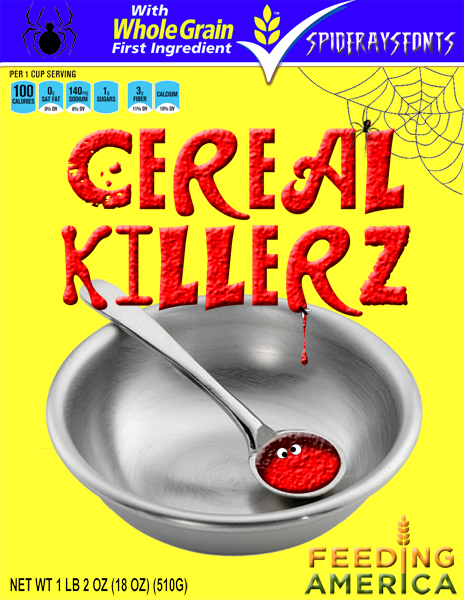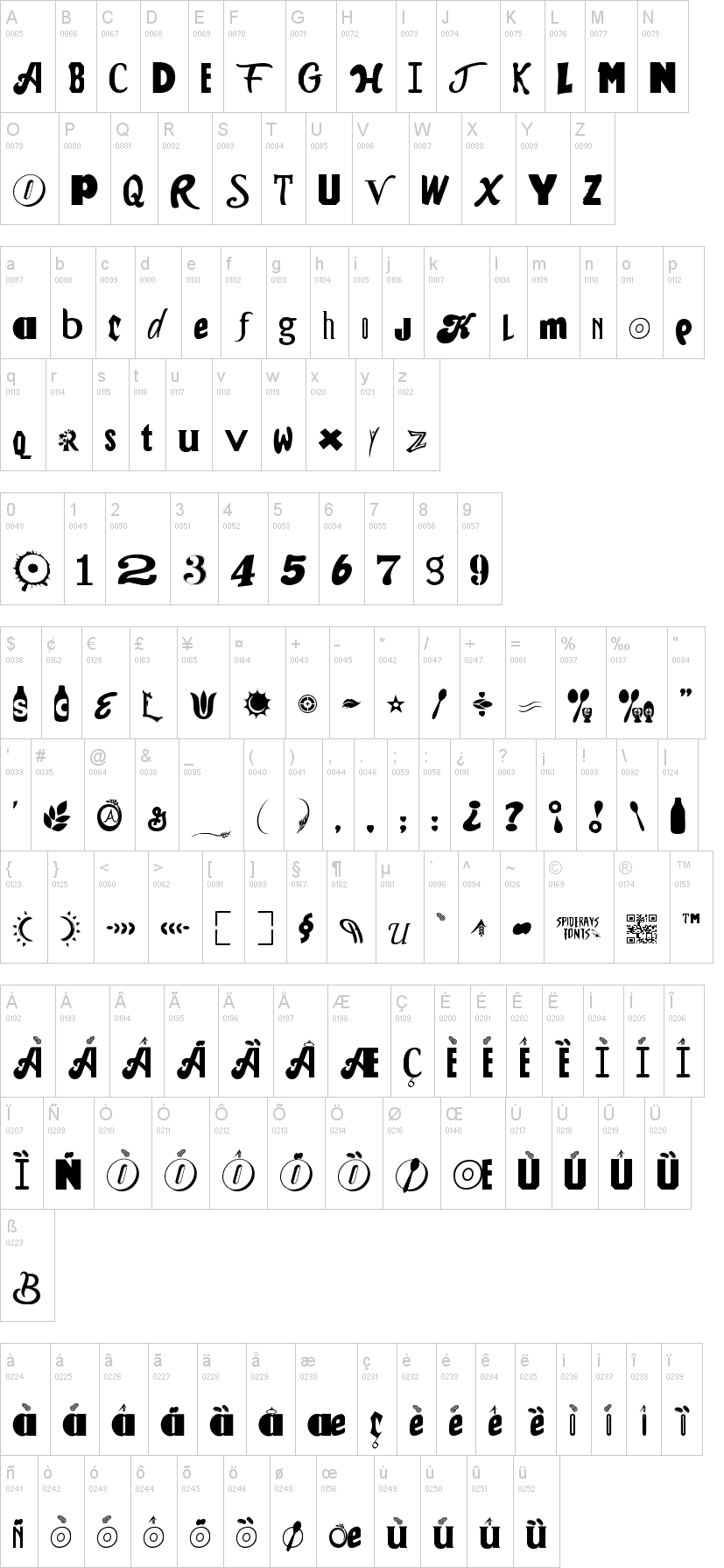
Note of the authorCereal Killerz was an idea that I had one day when I was eating my breakfast I saw potential in the amazing curves and lines on the Cereal boxes that were in front of me. When I investigated I also found the several letters and parts of logos could be transformed into numbers and other characters. This limited,kerned OTF version shows all the letters and numbers is strictly for personal use ONLY.